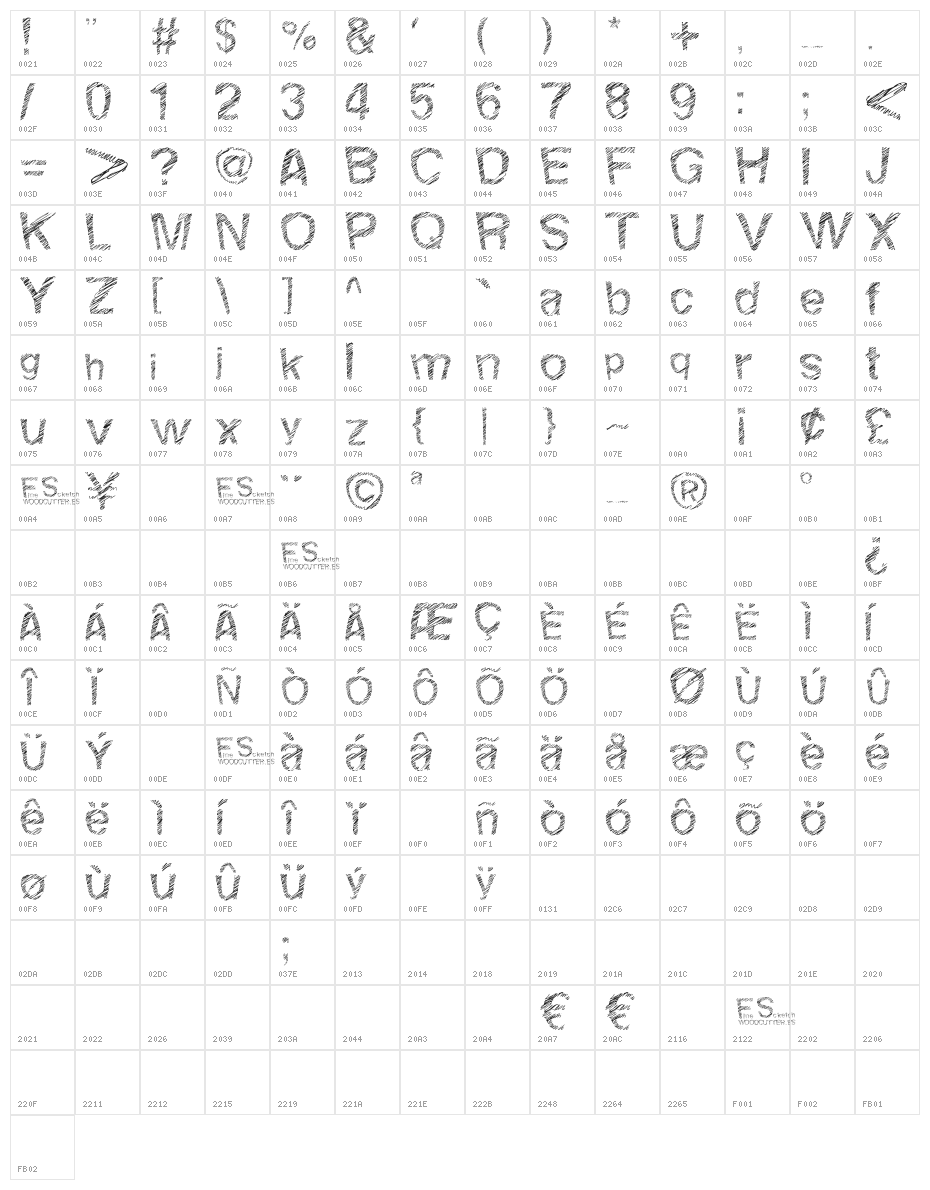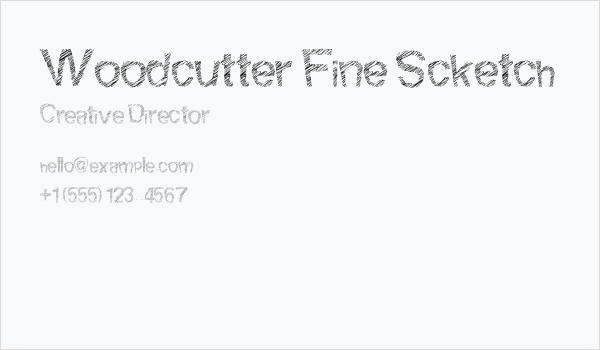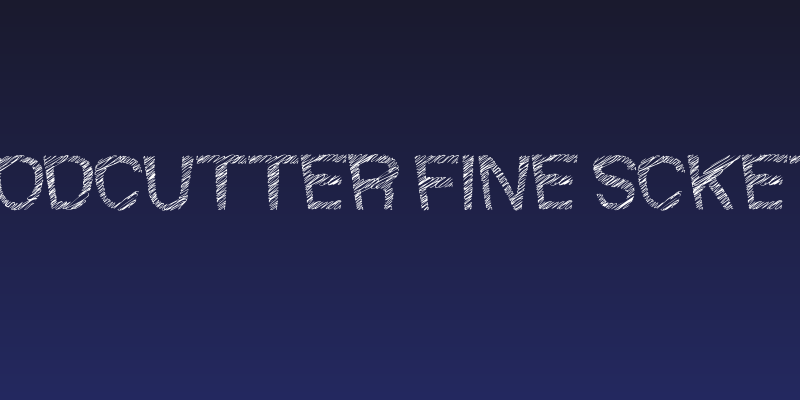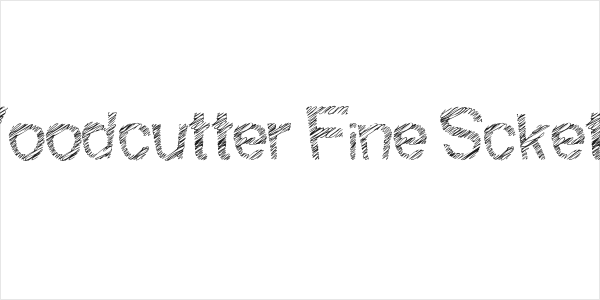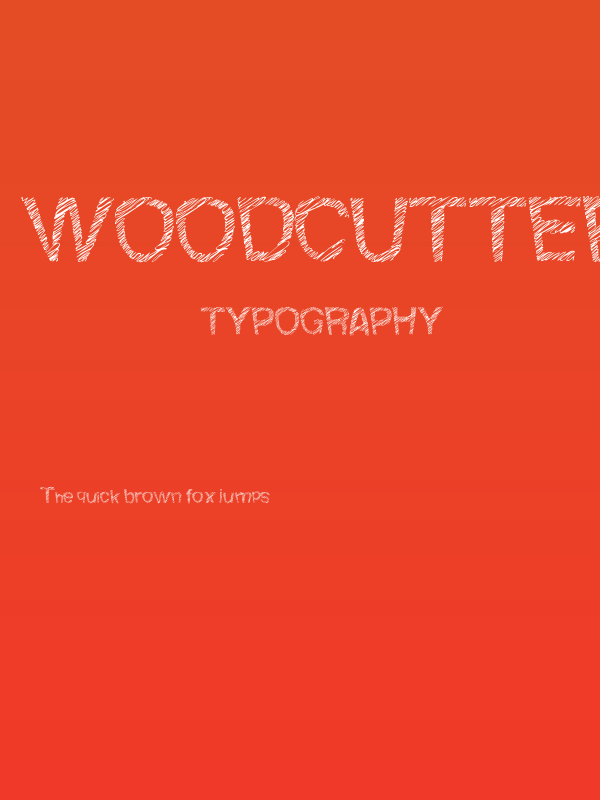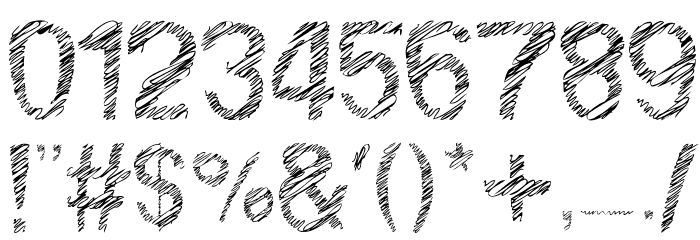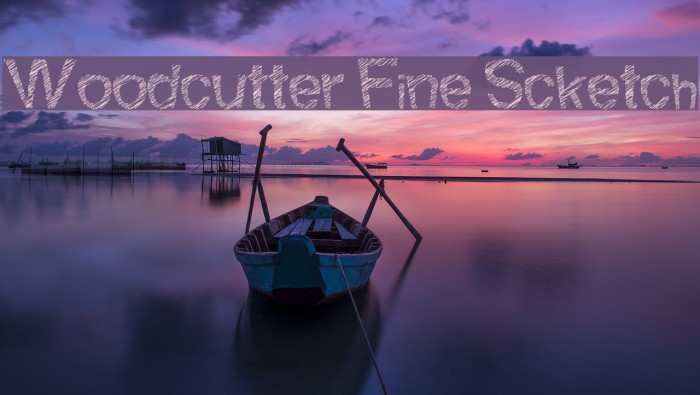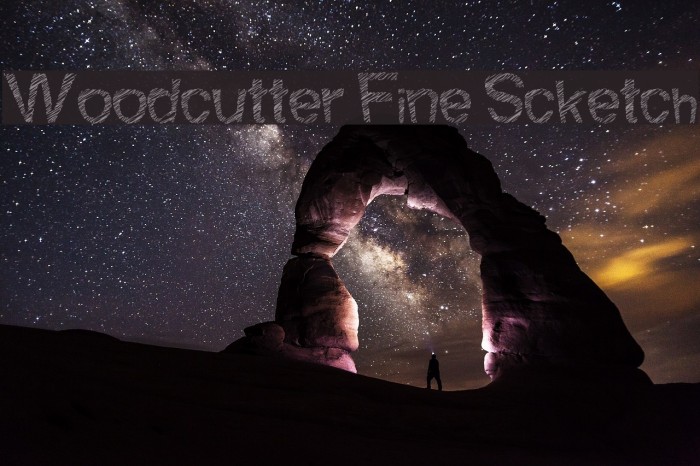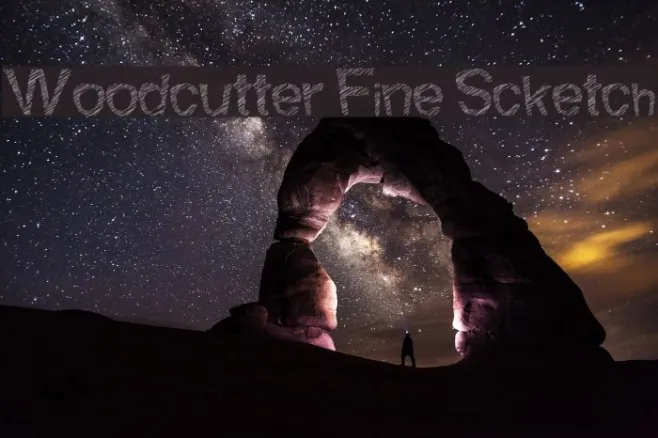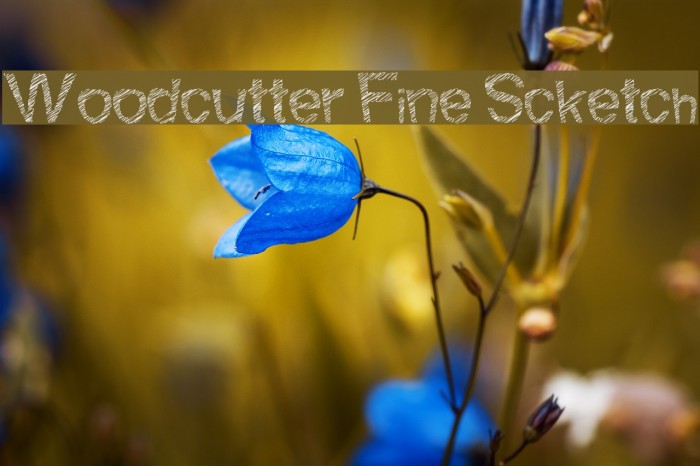
Woodcutter Fine Scketch Font
Woodcutter Fine Scketch Description
This font features a unique sketch-like appearance, giving it a hand-drawn, artistic feel. The letters are composed of rough, textured lines that mimic the look of pencil sketches, providing a rustic and creative aesthetic. The uppercase and lowercase letters maintain a consistent style, with a playful yet structured form. Numbers and special characters follow the same design, ensuring uniformity across all glyphs. This font's distinctive style makes it ideal for projects that require a personal, handcrafted touch.
| Overall Style | Artistic, Handcrafted |
| Use Case | Headlines, Logos, Artistic projects |
| Proposed Projects | Ideal for artistic projects, handmade crafts, greeting cards, and creative branding. |